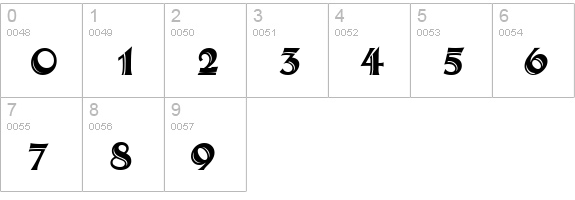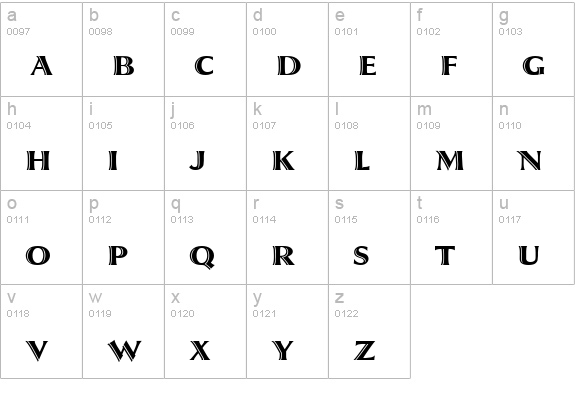
AtraxDReg Font Details
AtraxDReg font is a sleek and modern typeface designed for a wide range of design projects. Its clean lines and sharp edges give it a contemporary look that is perfect for branding, advertising, and digital media. The versatility of this font makes it suitable for both headings and body text, ensuring a cohesive and professional appearance across all applications. What makes AtraxDReg font even more appealing is the fact that it is available for free download at FontsMarket.com. This means that you can easily access and use this stylish font in your projects without any cost. With its elegant design and easy availability, AtraxDReg font is a must-have for any designer looking to add a touch of sophistication to their work.